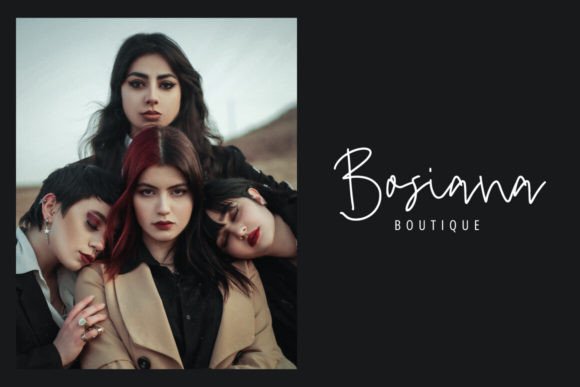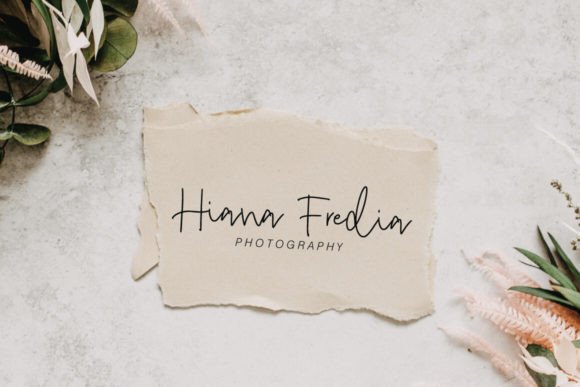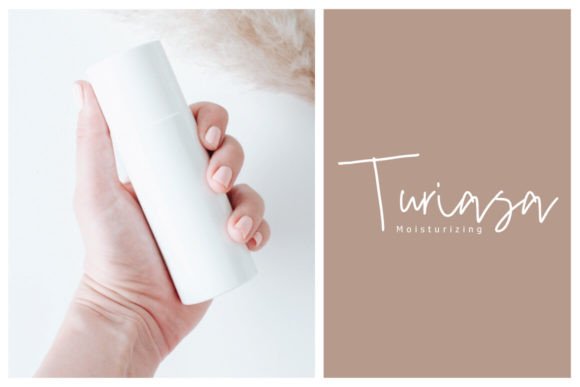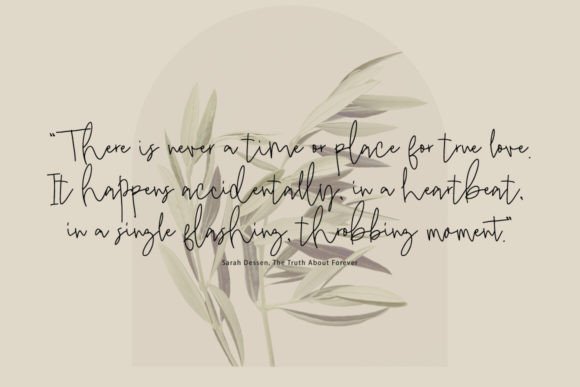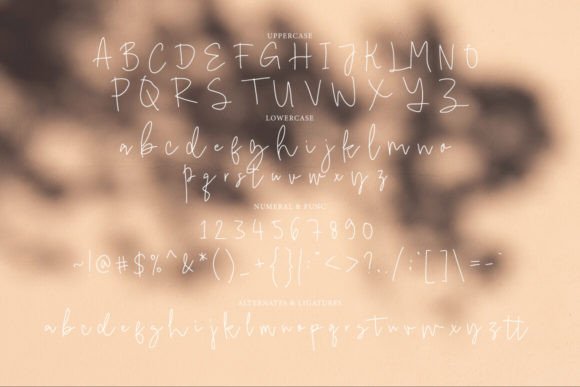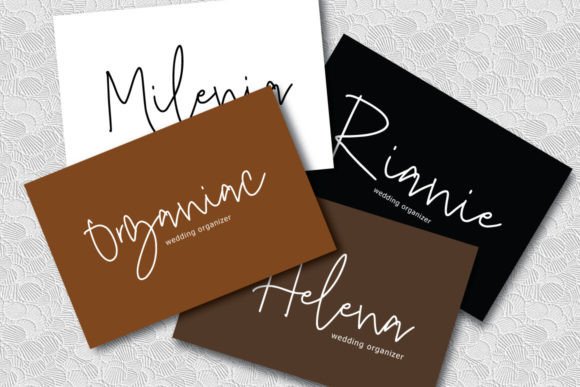
The Perfect Blend of Elegance and Whimsy: Unveiling the Arkamia Font
As a designer, there’s nothing quite like the thrill of bringing a creative vision to life. Whether it’s crafting a bespoke invitation or developing a brand identity, the right font can make all the difference. For those seeking a truly unique and eye-catching typographic solution, the Arkamia Font is an exciting discovery.
This stunning font boasts a handmade signature style, complete with decorative characters and a dancing baseline. With over 130 glyphs to play with, designers can create stunning visual effects on invitations, greeting cards, branding materials, business cards, quotes, posters, and more. What sets the Arkamia Font apart is its versatility, making it an invaluable asset for any creative professional.
Arkamia Font Key Features
- Font Family: Arkamia Font offers a range of styles, including Regular, Italic, Bold, and Bold Italic.
- Unique Characteristics: The font features a unique blend of modern and mystical elements, with intricate details and subtle flourishes.
Designer Review: Arkamia Font
I recently had the chance to work with the Arkamia font, and I must say it’s been an interesting experience. Here’s my honest take on this font.
- Unique aesthetic**: Arkamia has a distinct, otherworldly feel to it, which can be perfect for projects that need a touch of the extraordinary.
- Good legibility**: Despite its unusual appearance, the font is still relatively easy to read, making it suitable for a wide range of applications.
- Good range of weights**: The font comes in a decent variety of weights, from light to bold, giving designers a good deal of flexibility when it comes to selecting the right style for their project.
- Limited language support**: Arkamia doesn’t seem to have comprehensive language support, which might be a problem for designers working on projects that require a wide range of languages.
- Not ideal for body text**: While Arkamia is great for headlines and titles, it’s not the most suitable font for large blocks of body text due to its unique, ornate design.
Overall, I think Arkamia is a great font for designers who want to add a touch of the unusual to their projects. However, its limitations mean it’s not a one-size-fits-all solution. It’s perfect for specific use cases, but designers should be aware of its limitations before committing to using it.
The Arkamia font is ideal for:
- Brand identities and logos
- Marketing materials and advertisements
- Editorial content and articles